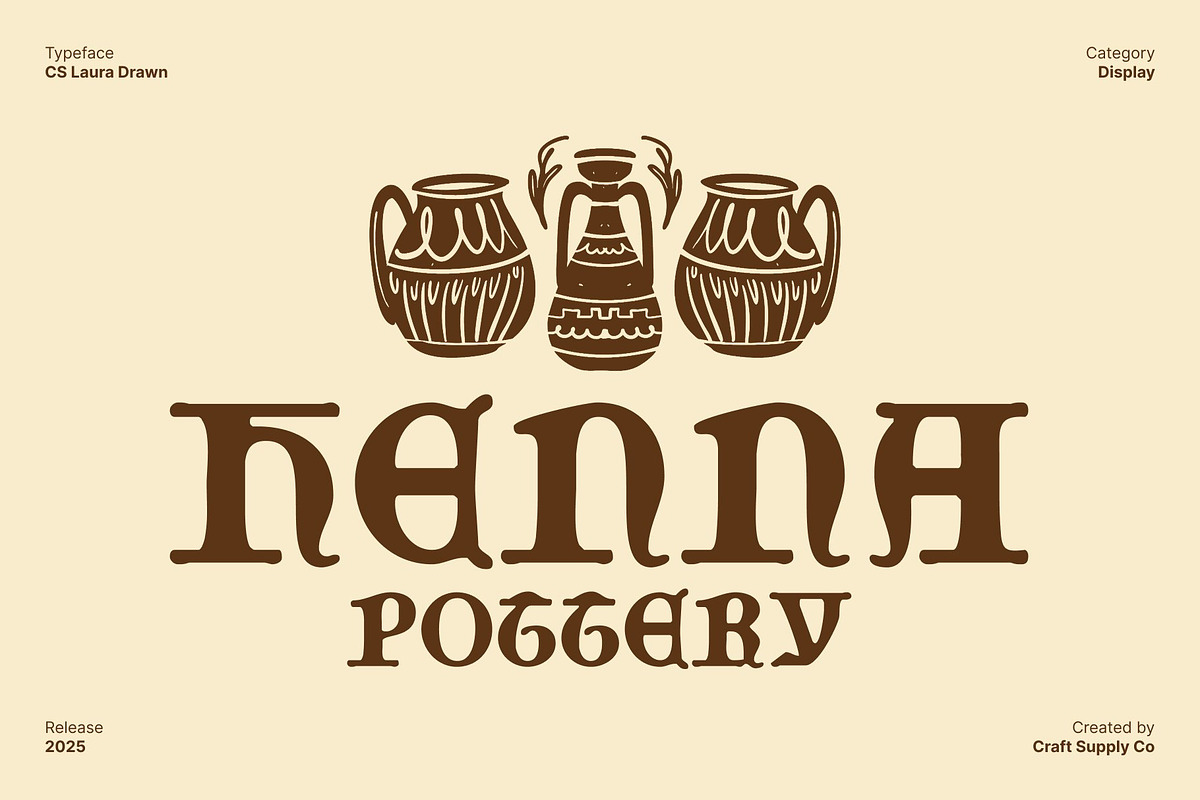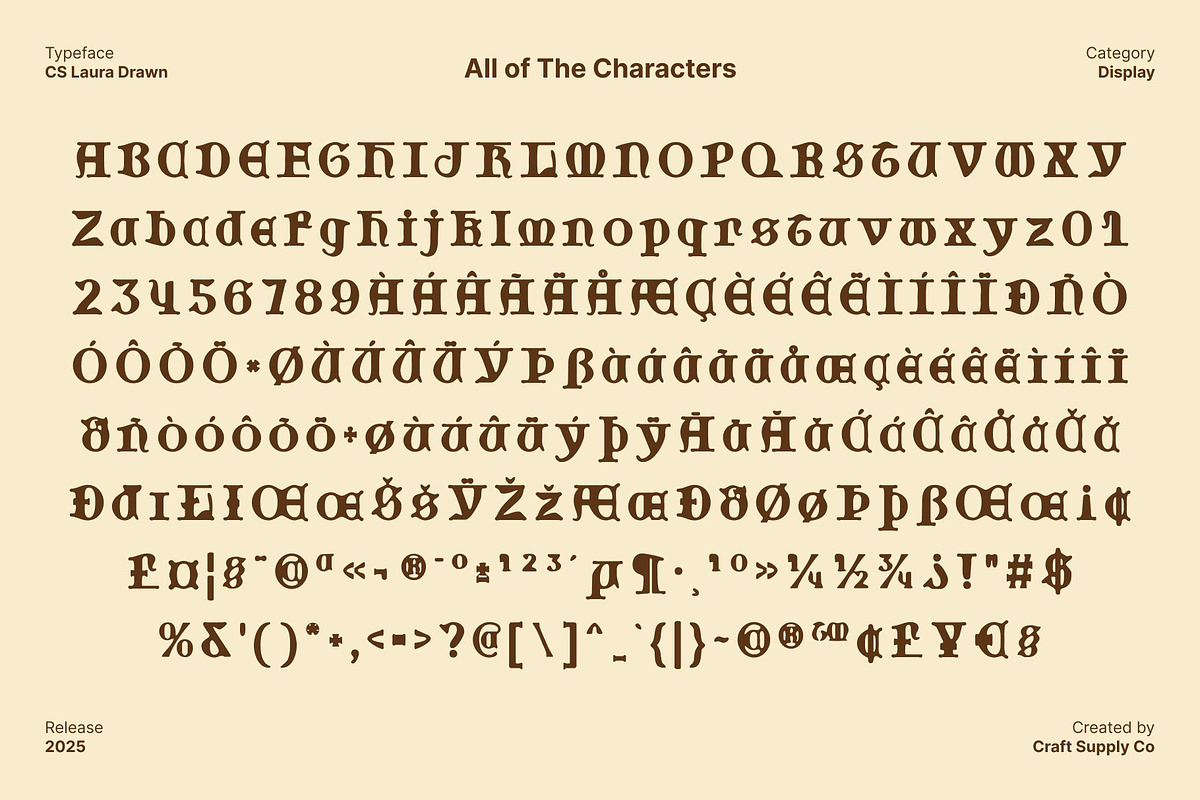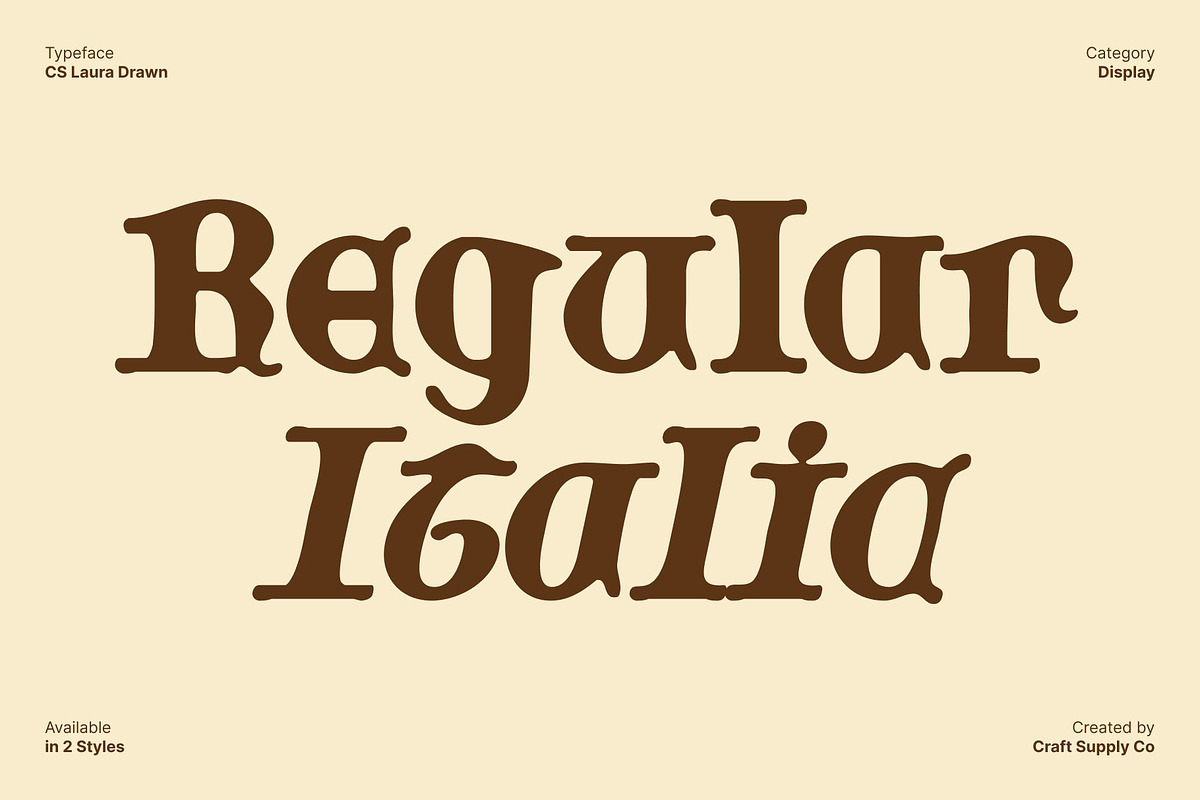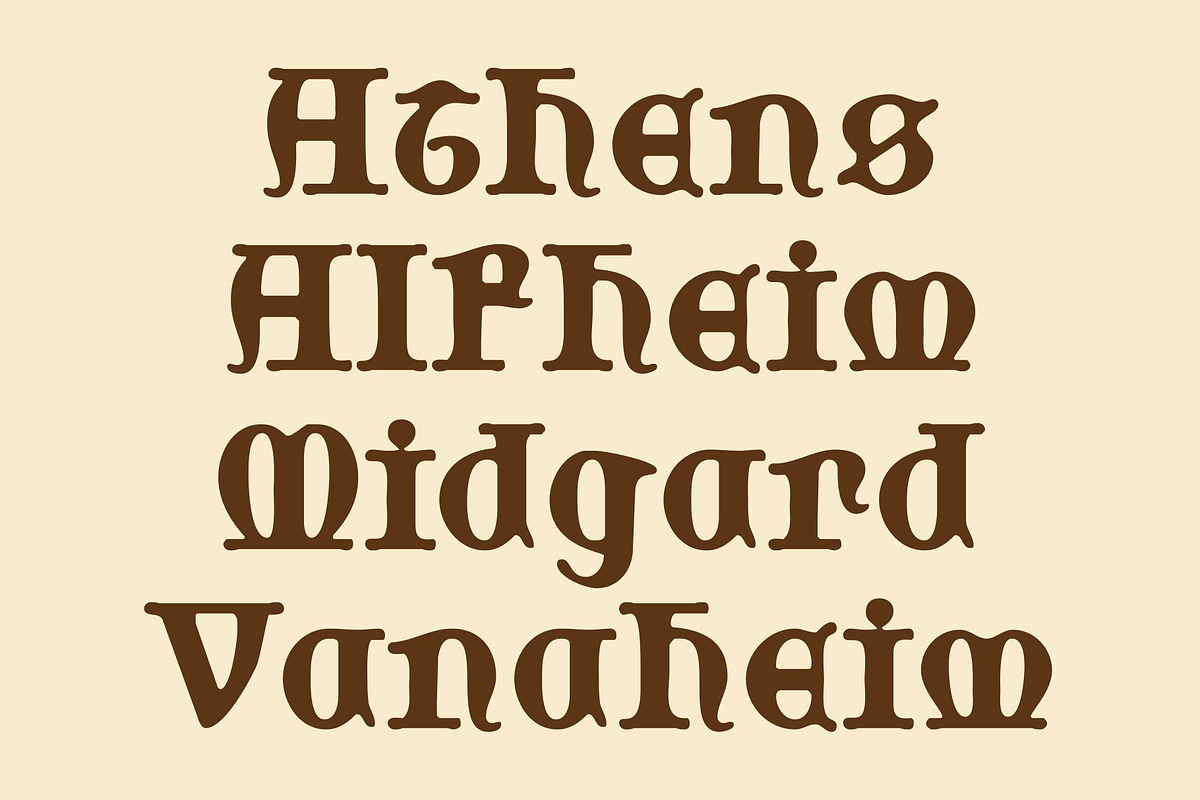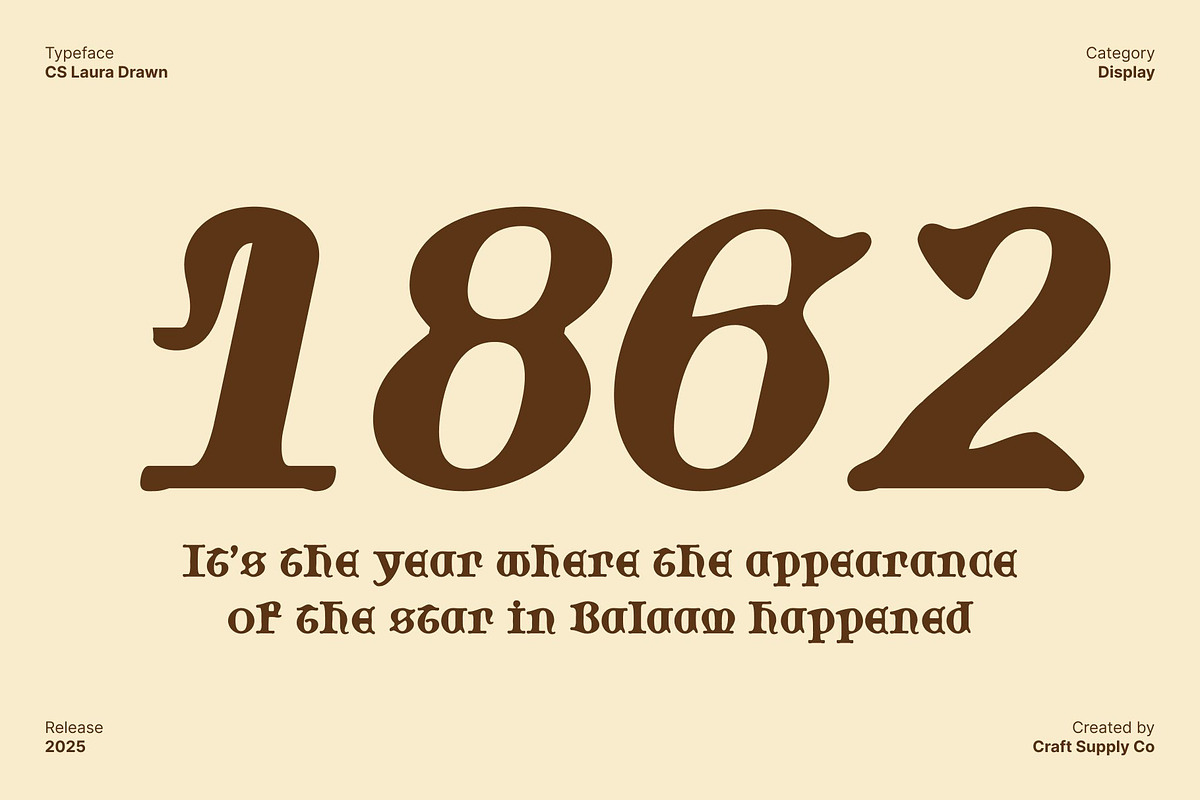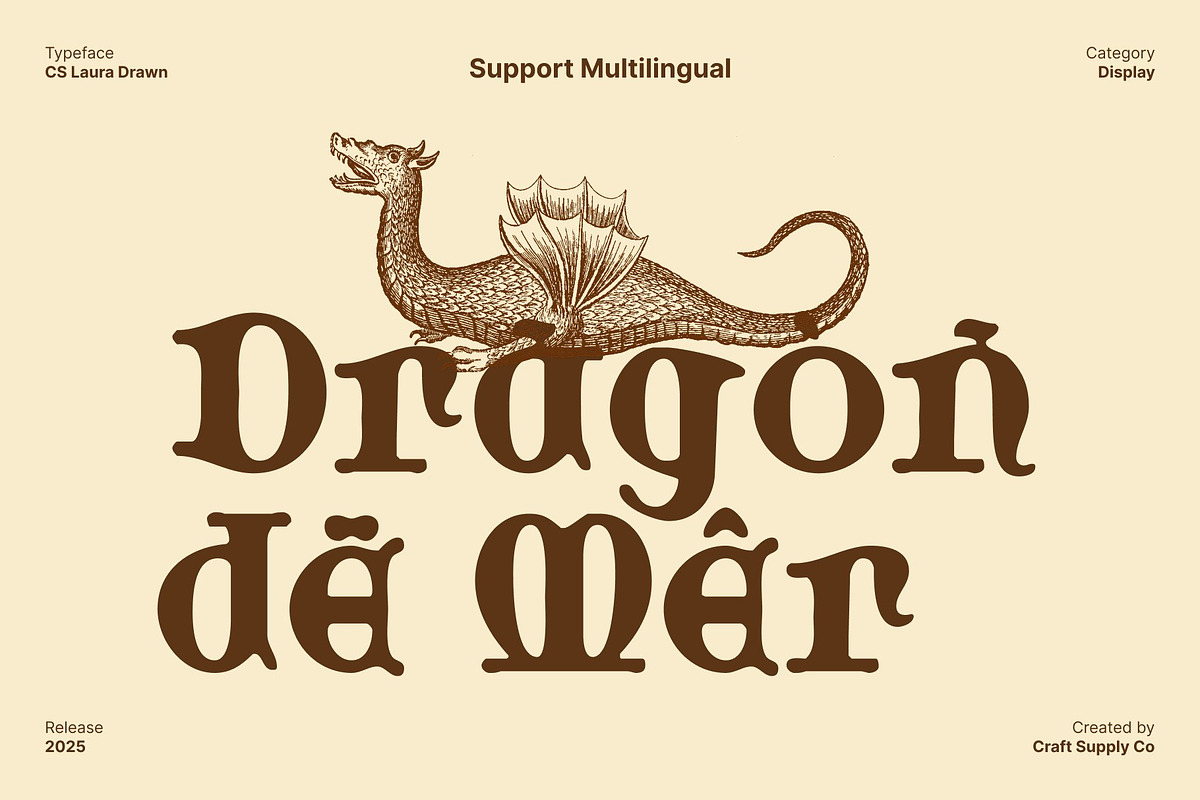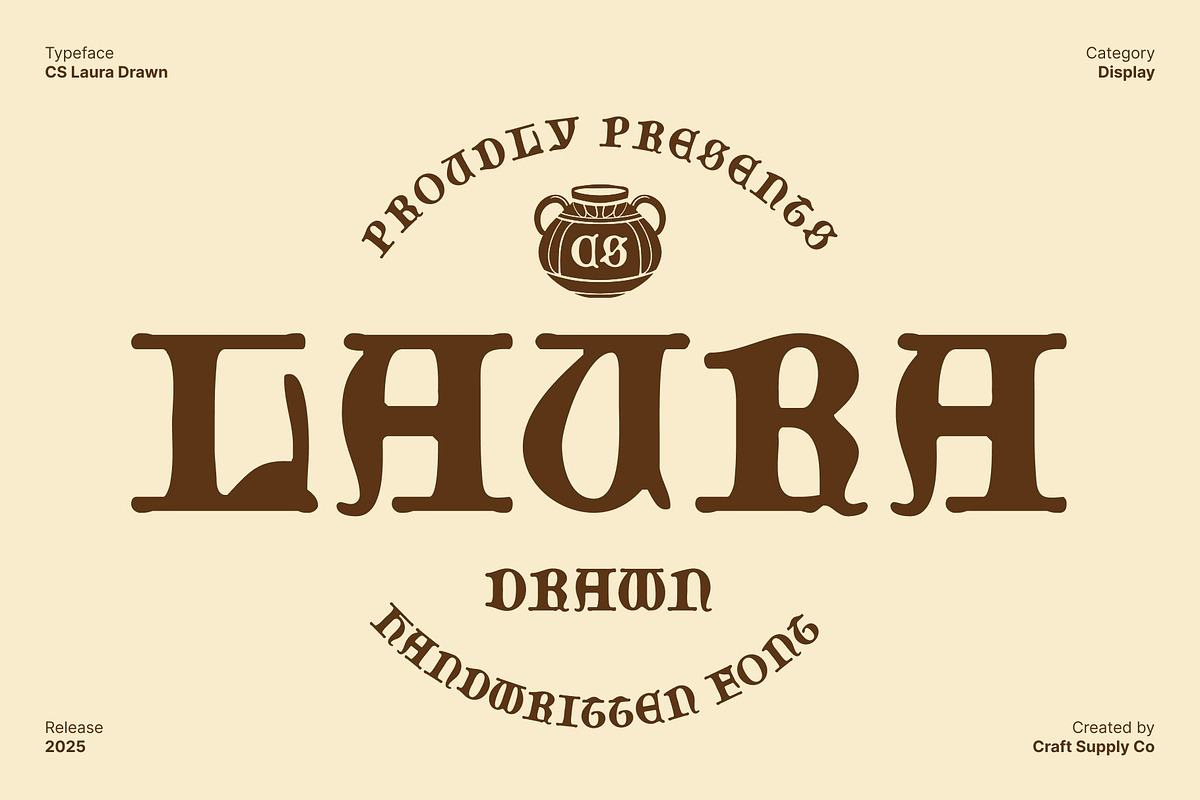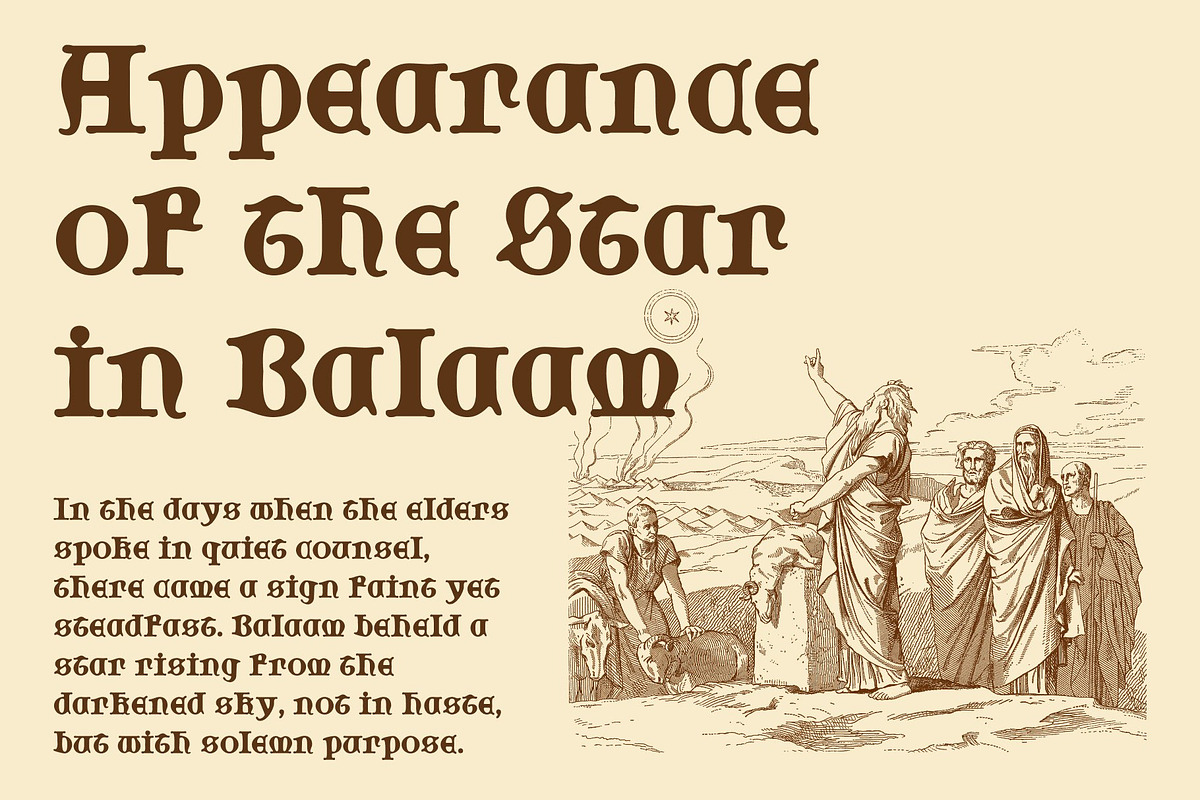
CS Laura Drawn
CS Laura Drawn – Gothic Display Font with Handmade Artistry
Sharp Gothic Forms with Bold Visual Strength This is a decorative Gothic display font built on sharp, bold forms that command attention. Inspired by traditional Gothic lettering, it carries a sense of heritage and authority, making every character feel powerful and intentional. Ideal for designers who want to evoke classic strength with a modern twist.
Hand-Drawn Texture for Artistic Dept What sets this font apart is its expressive hand-drawn texture. Each letter is enhanced with subtle irregularities and handcrafted detail, adding warmth and artistry to its otherwise strong Gothic form. This blend of precision and imperfection creates a unique personality perfect for projects that need both historical influence and creative authenticity.
Ideal for Editorial and Historical-Themed Designs Whether you’re crafting a historical poster, designing a newspaper-style layout, or creating striking book titles, this font brings instant character. Its Gothic structure introduces timeless elegance, while the drawn effect softens the style just enough to make it approachable and visually engaging across various editorial contexts.
Powerful Choice for Branding and Display Work This font excels in branding that seeks a bold, distinguished look. Its sharp forms ensure high visibility, and its handcrafted texture adds a signature feel that separates your design from the rest. This font delivers strength, heritage, and artistic craftsmanship in one cohesive style.